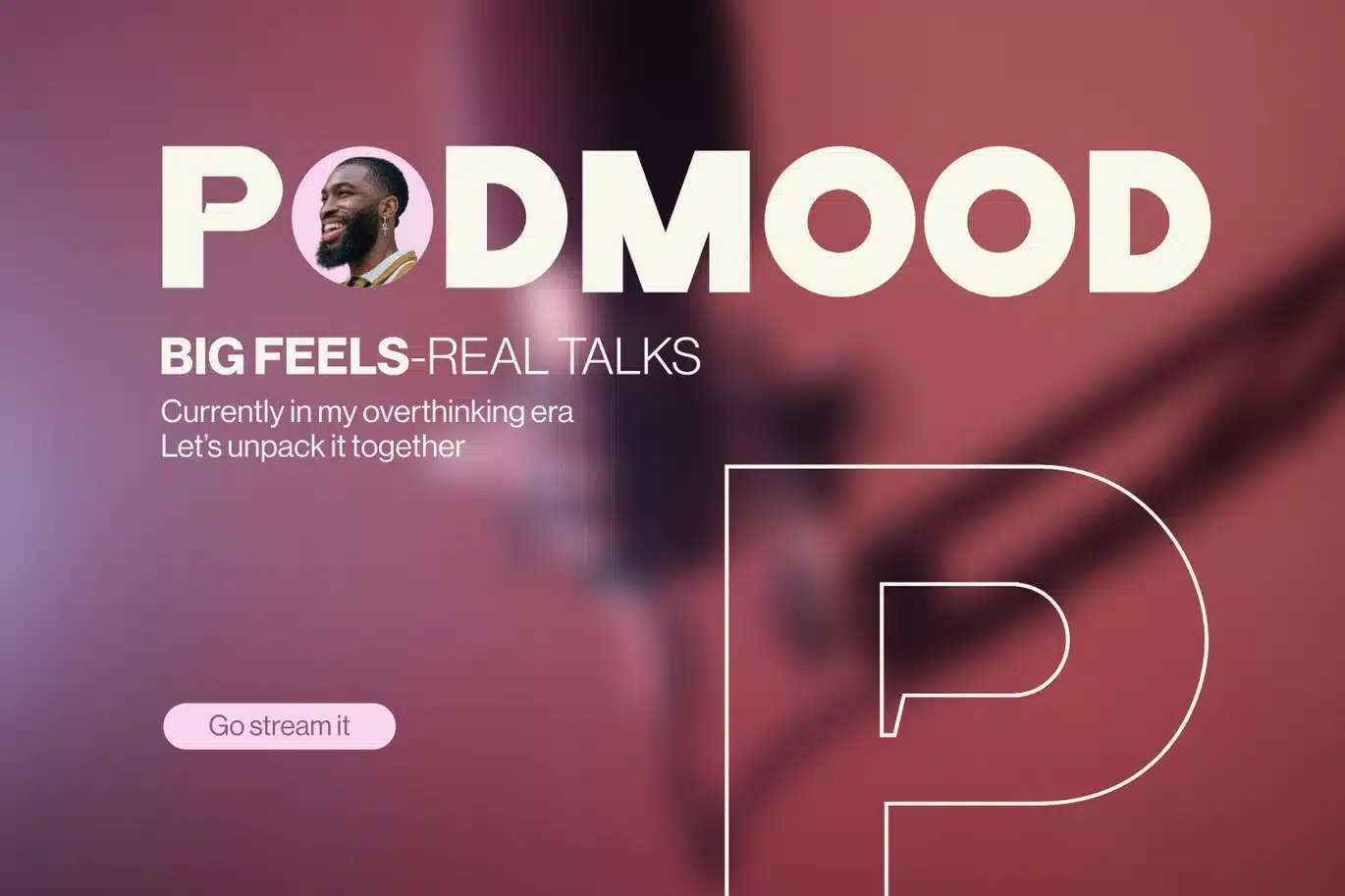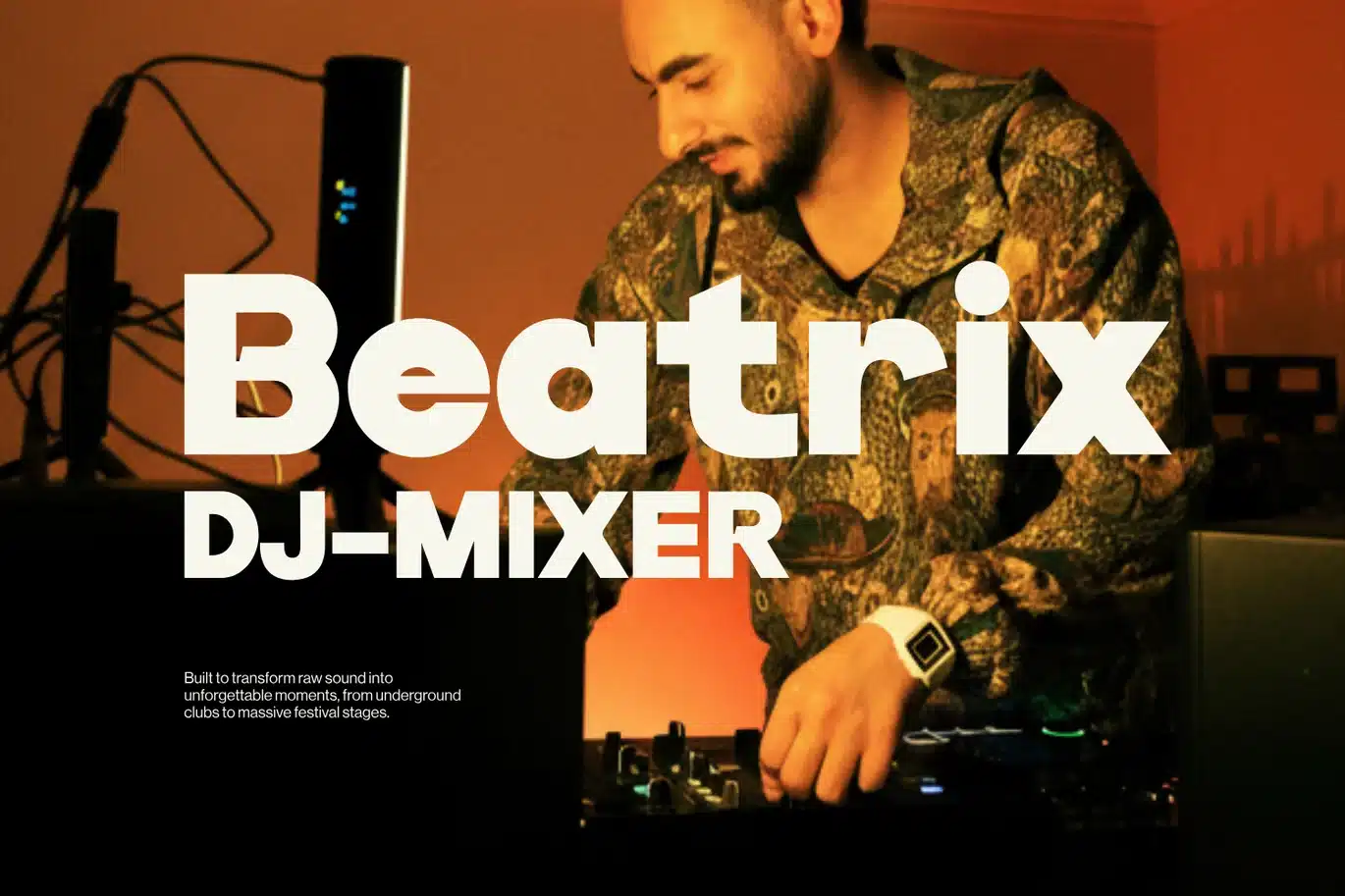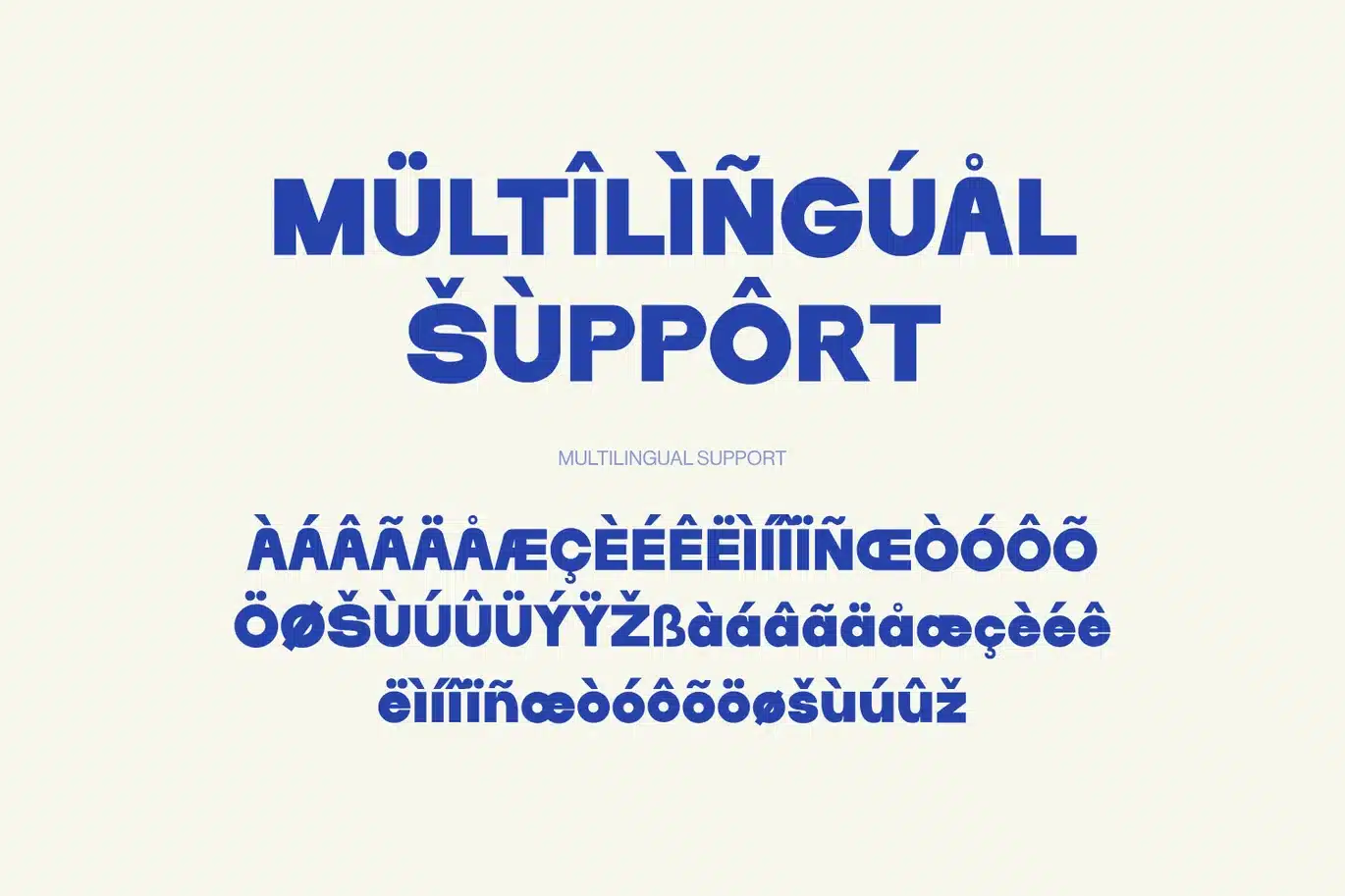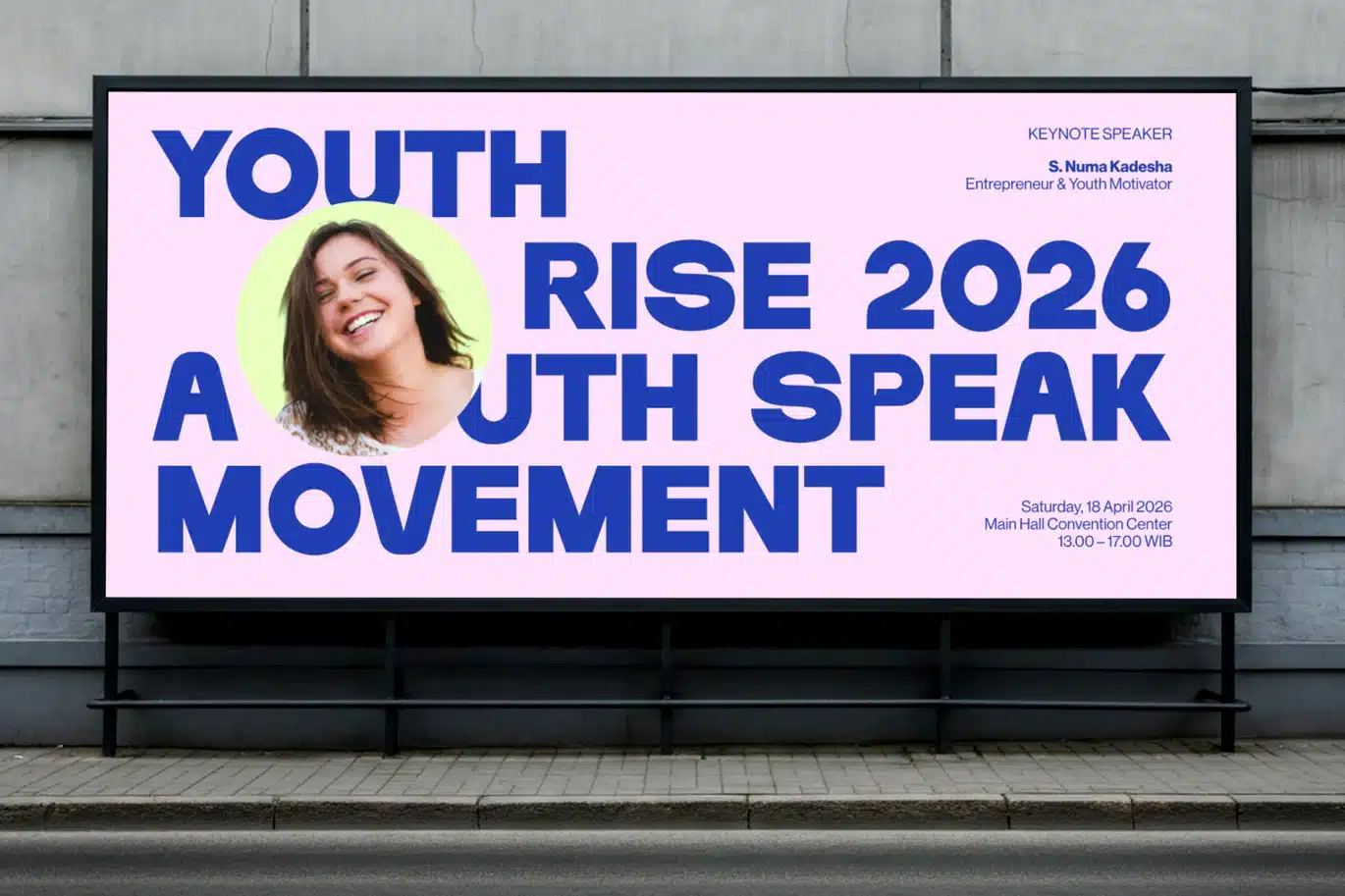
Kolega – Logo Font
Kolega font is a modern and elegant sans serif display typeface designed to deliver a clean and minimal look for logo and branding projects. With its bold structure and geometric balance, this font reflects the timeless influence of helvetica, montserrat, and futura, while bringing a fresh and contemporary personality. It is perfectly suited for corporate identities, fashion branding, and modern visual systems that require clarity and strong visual impact.
With its versatile and adaptable design, Kolega font works seamlessly across a wide range of creative applications, from professional corporate layouts to playful kids concepts. The clean and minimal approach ensures excellent readability while maintaining a powerful display presence, making it ideal for logos, branding, and modern design compositions. Kolega stands among modern fonts that combine simplicity, elegance, and functionality for impactful and refined visual communication.